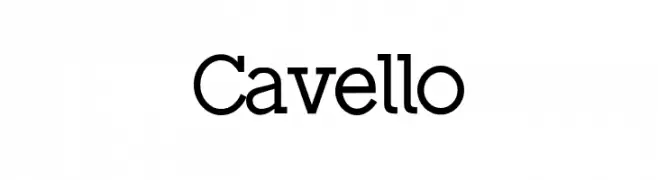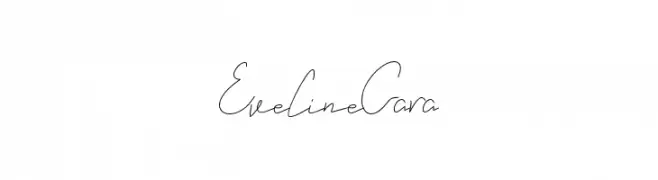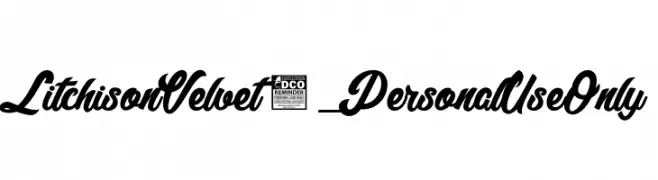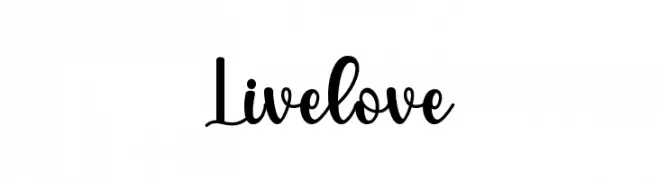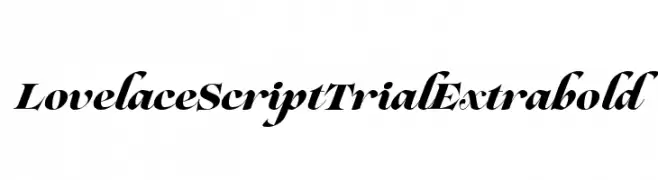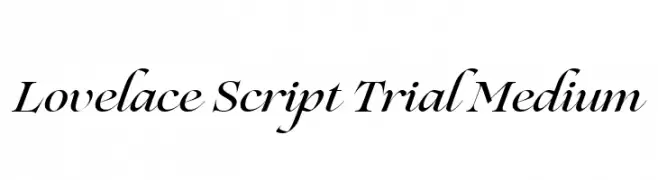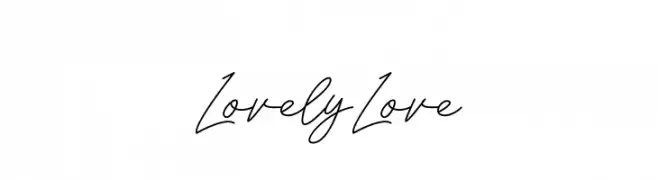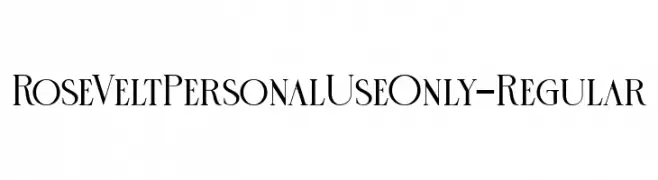
A playful and elegant script font with flowing, cursive letterforms.
A playful and elegant script font with a handwritten style.
A graceful, handwritten script font with elongated, flowing strokes.
A modern serif font with elegant, well-defined characters and slight stroke contrast.
A bold, elegant script font with high contrast and flowing cursive letterforms.
An elegant script font with flowing, cursive strokes and graceful curves.
An elegant, cursive handwritten font with a romantic and sophisticated style.
A bold, cursive font with elegant, interconnected letters and ornate uppercase designs.
A classic serif font with high contrast and elegant, refined letterforms.
A bold, futuristic font with a three-dimensional outline and geometric style.